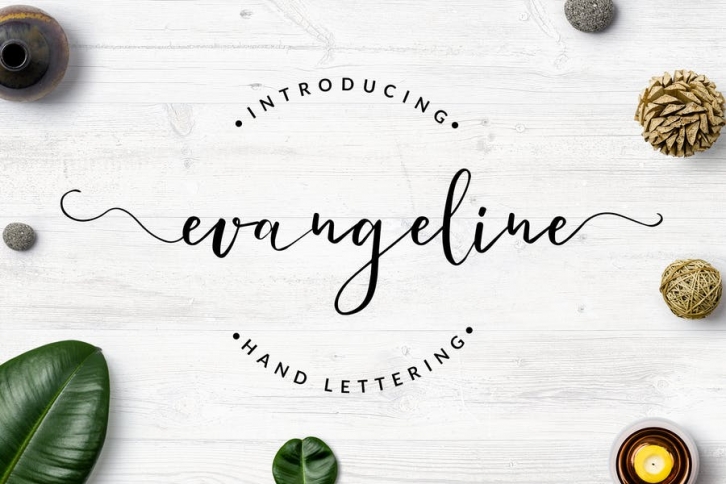
Evangeline - Hand Lettering Font Download
Evangeline is a hand lettering font. Work great for any design needs: logo, branding, modern advertising design, logos, poster quote, book/cover Title, editorial design, website/blog, card, custom mug, pillow, t-shirts, and any hand-lettered needs.
Evangeline (.ttf + .otf + webfont) comes with upper and lowercase Standard Characters, Punctuation, and Numerals.